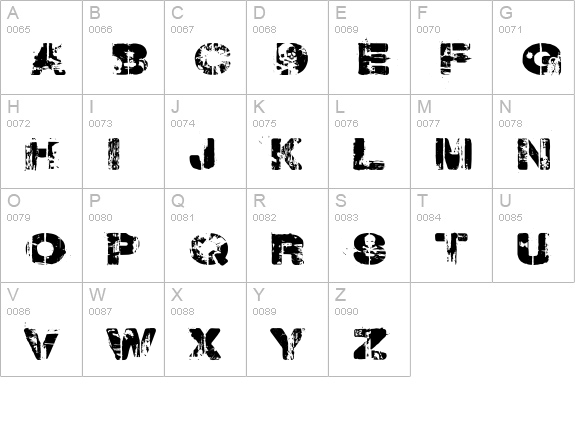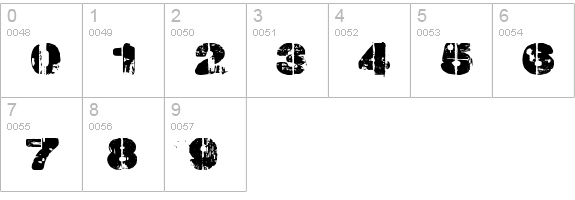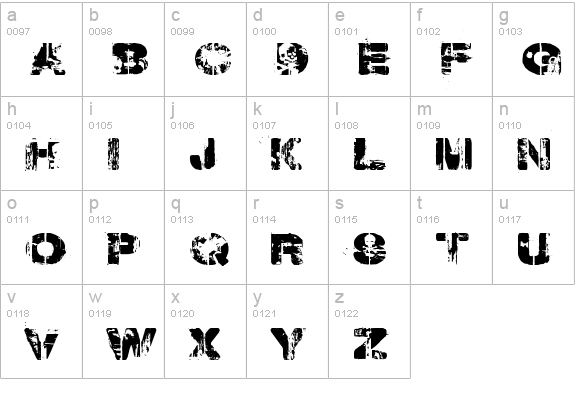
Weekend Warrior font is a dynamic and bold display typeface that exudes energy and enthusiasm. It is the perfect choice for those seeking to add a touch of excitement and vibrancy to their designs. With its strong and commanding presence, Weekend Warrior font grabs attention and leaves a lasting impression. Crafted with precision and attention to detail, this font features unique letterforms that are both stylish and legible. The sharp edges and strong lines give it a distinct and modern look, making it suitable for a wide range of design projects, from logos and branding to posters and headlines. What sets Weekend Warrior font apart is not only its striking aesthetics but also its accessibility. This font is freely available to download at FontsMarket.com, allowing designers, creatives, and enthusiasts to enjoy its boldness without any constraints. It empowers users to express their creativity without compromising on quality or budget. Whether you're working on a personal project or a professional venture, Weekend Warrior font will elevate your designs to new heights. Its versatility makes it suitable for various industries, including sports, fashion, entertainment, and more. Let Weekend Warrior font be your secret weapon in creating eye-catching and memorable visuals. So, unleash your inner warrior and download Weekend Warrior font today. With its powerful presence and its availability for free at FontsMarket.com, you can conquer the design world with confidence and style.